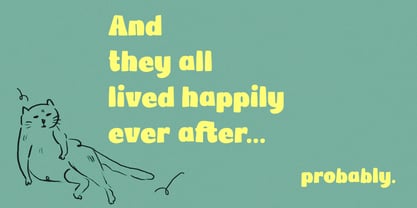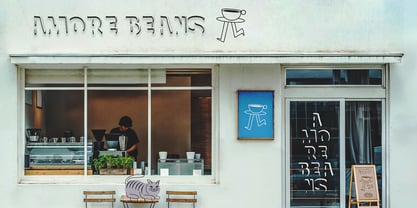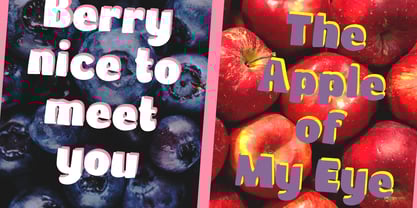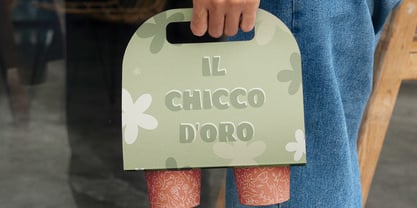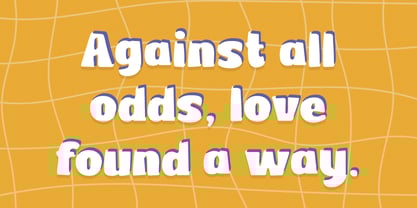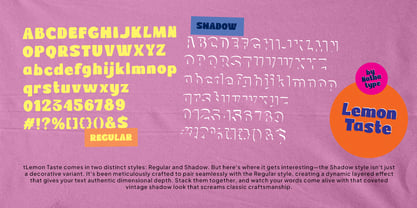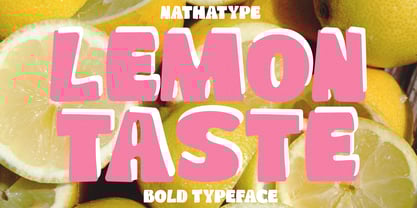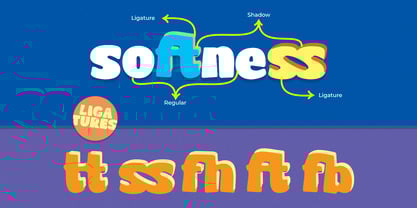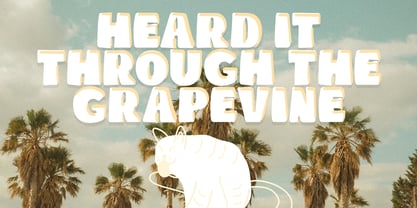
Lemon Taste
by Nathatype
The Lemon Taste Font Family was designed by Donis Miftahudin and published by Nathatype. Lemon Taste contains 2 styles and family package options.
Lemon Taste is a fun and eye-catching display font. Its thick, soft letterforms create an instantly recognizable style that feels cheerful, approachable, and full of personality. Crafted for bold typography lovers, Lemon Taste combines strength and softness in one cohesive design. The low contrast strokes ensure consistency and clarity, while the rounded edges give the font a playful, welcoming tone. In addition, enjoy the features here. Features: Ligatures Multilingual Supports PUA Encoded Numerals and Punctuations Lemon Taste fits in logos, quotes, branding, posters, and many more designs. Find out more ways to use this font by taking a look at the font preview. Thanks for purchasing our fonts. Hopefully, you have a great time using our font. Feel free to contact us anytime for further information or when you have trouble with the font. Thanks a lot and happy designing.
Designers: Donis Miftahudin
Publisher: Nathatype
Foundry: Nathatype
Design Owner: Nathatype